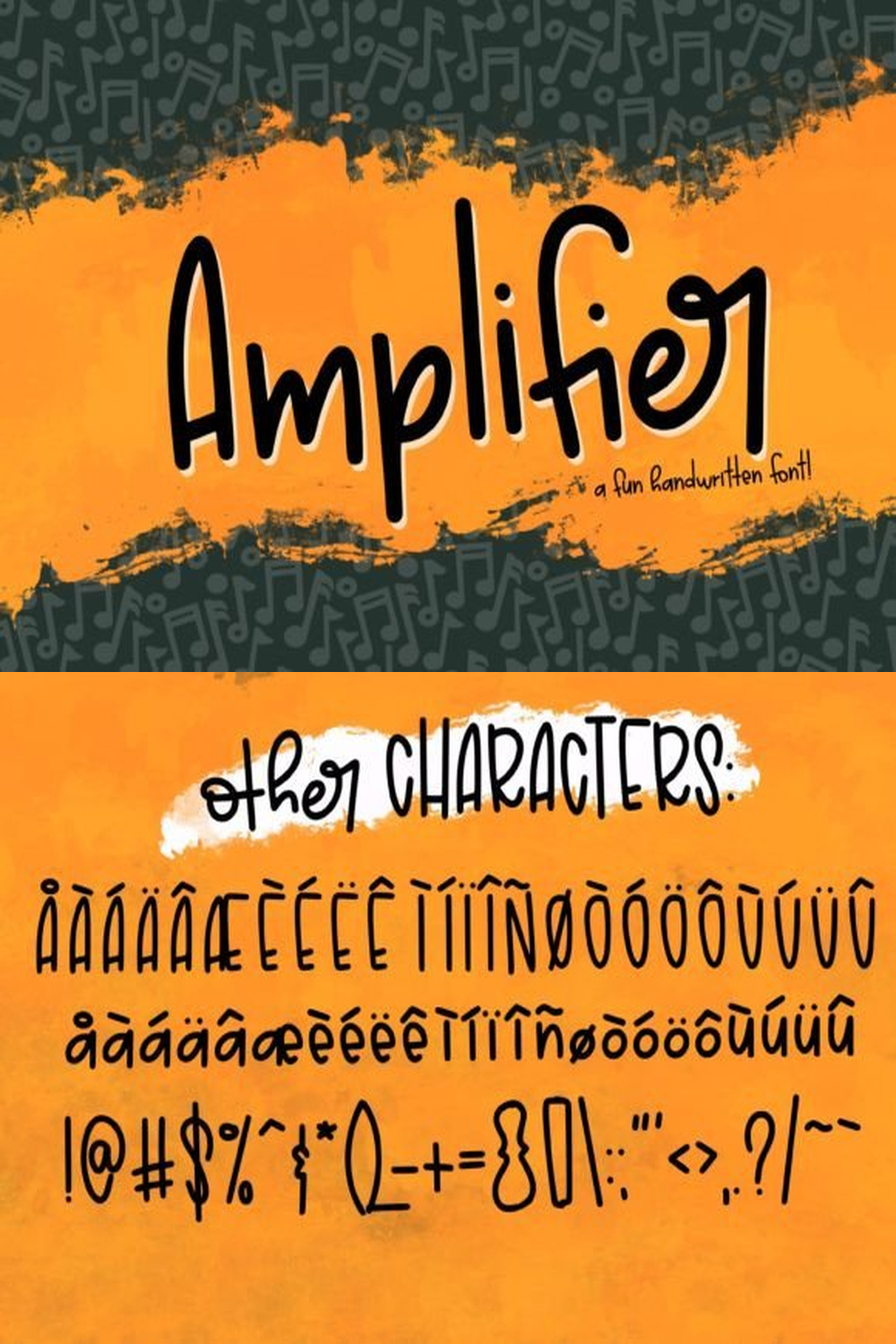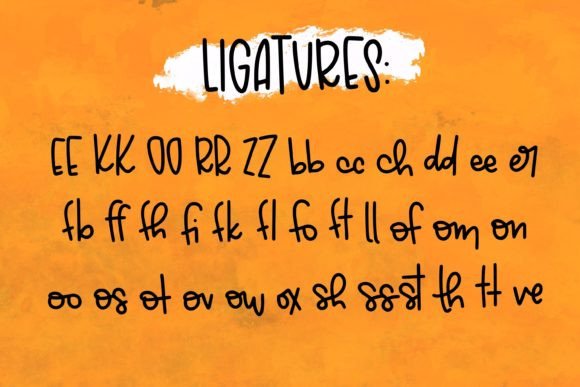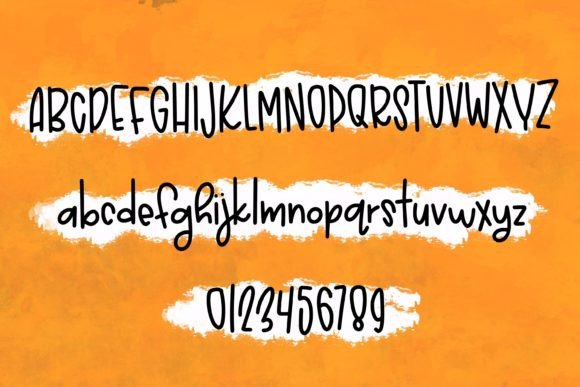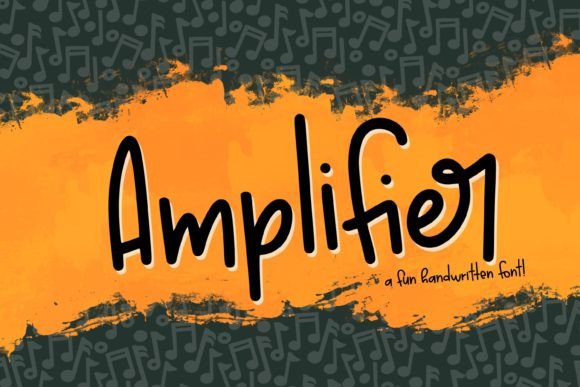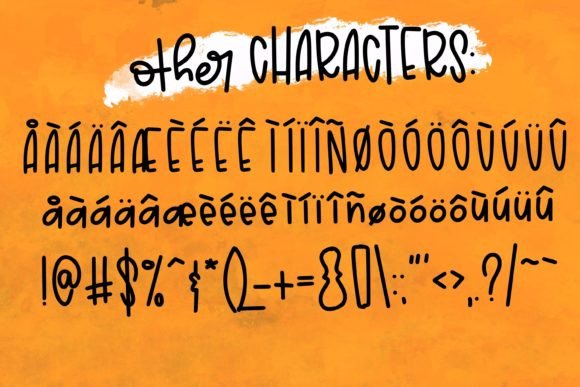
Amplifier Font: A Bold Handwritten Font for Playful Designs!
About the Amplifier Font
Welcome to the world of Amplifier Font, a typeface that will inspire your next great project. Turn up the volume with Amplifier, a bold, playful font that’s ready to make a statement! With its thick, energetic strokes and quirky character set, this font brings a rebellious yet fun-loving vibe to your projects.
Amplifier Font Usage Examples